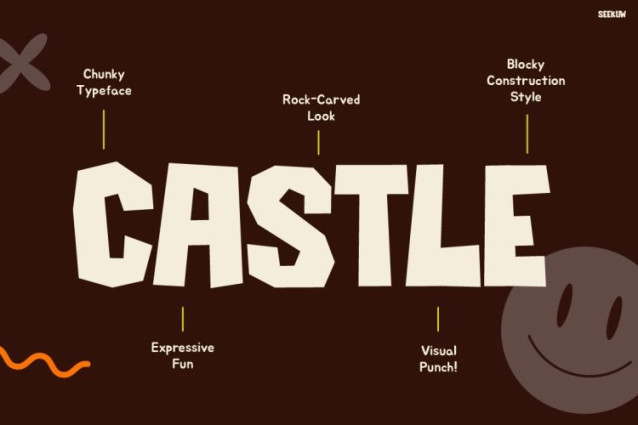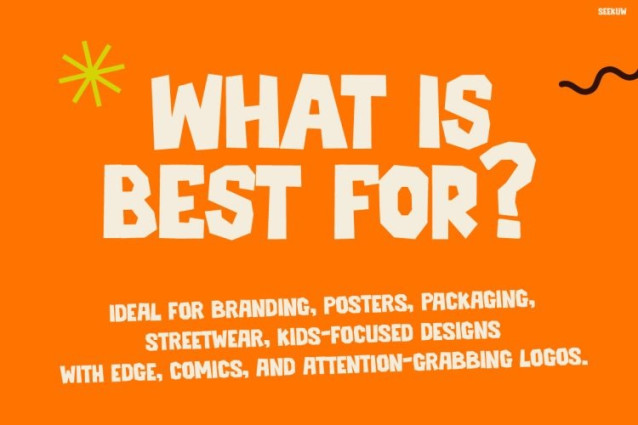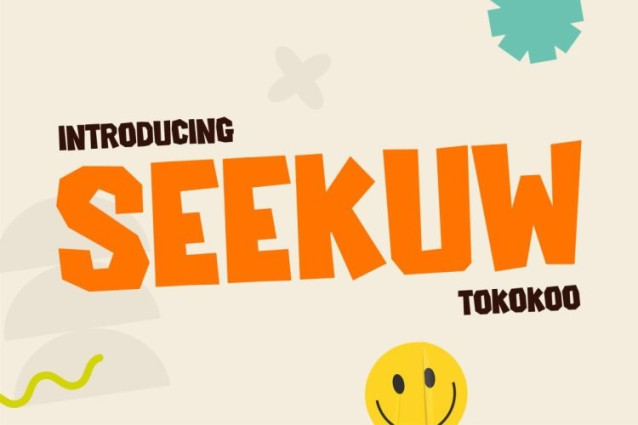
Seekuw Font
Seekuw Font is a bold and playful display font with instant impact. From the first glance, it delivers strong personality and energy. Moreover, its chunky letterforms and soft curves feel cheerful and expressive. At the same time, the irregular edges add a rugged, handmade charm. As a result, the font feels fun yet confident. In addition, the bold weight improves visibility across layouts. Therefore, messages remain clear and eye-catching. Overall, SEEKUW combines playful aesthetics with practical readability. Consequently, it works well for both creative and functional designs.
SEEKUW is built for expressive display use. First, it performs strongly in headlines and posters. Additionally, it works well for packaging and branding visuals. The font includes uppercase letters, numbers, and essential symbols. Because of this, it supports real design needs. Moreover, its cartoon-inspired style feels friendly and modern. However, it still maintains a bold presence. Furthermore, the rugged edges add texture without reducing clarity. As a result, Kids Font SEEKUW feels lively and authentic. Meanwhile, its strong structure ensures consistent results across print and digital media.
Suitable For
Kids Font SEEKUW is ideal for designers and illustrators. Likewise, content creators and small businesses can benefit from its playful tone. It suits kids brands, snacks, toys, and merchandise. In addition, it works well for children’s books and school events. Moreover, it shines in posters, banners, and festival graphics. Social media creators can also use it for thumbnails and reels. Therefore, anyone seeking bold and joyful typography will find this font effective. Ultimately, it helps creative projects feel confident and approachable.
Kids Font SEEKUW is a smart choice for bold visual storytelling. Therefore, adding it to your font collection will strengthen your designs. In the end, it helps your work stand out, attract attention, and drive interest.